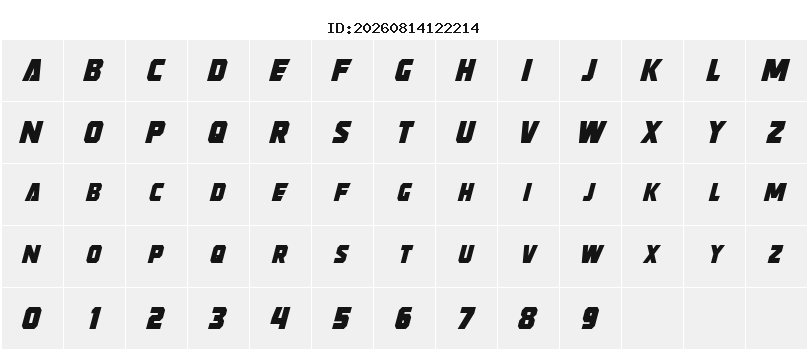
Strongarm Preview
• Font Name: Strongarm
• Full Font Name: Strongarm Italic
• Version: Version 1.00 October 7, 2014, initial release
• Character Count: 242
• Designer: Neale Davidson
• Manufacturer: Neale Davidson
About Strongarm.otf
Strongarm.otf is a modern, elegant sans-serif font designed for ultimate readability and visual harmony. Perfect for branding, headlines, web design, and print materials.